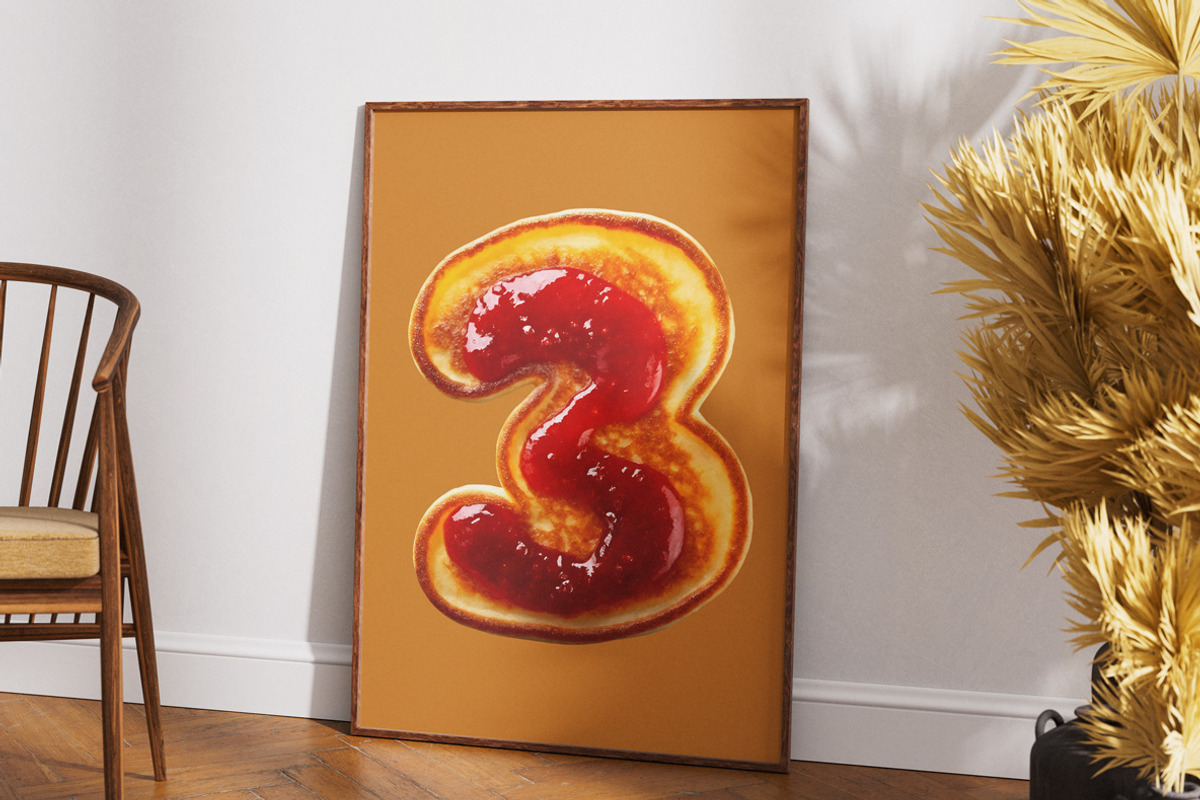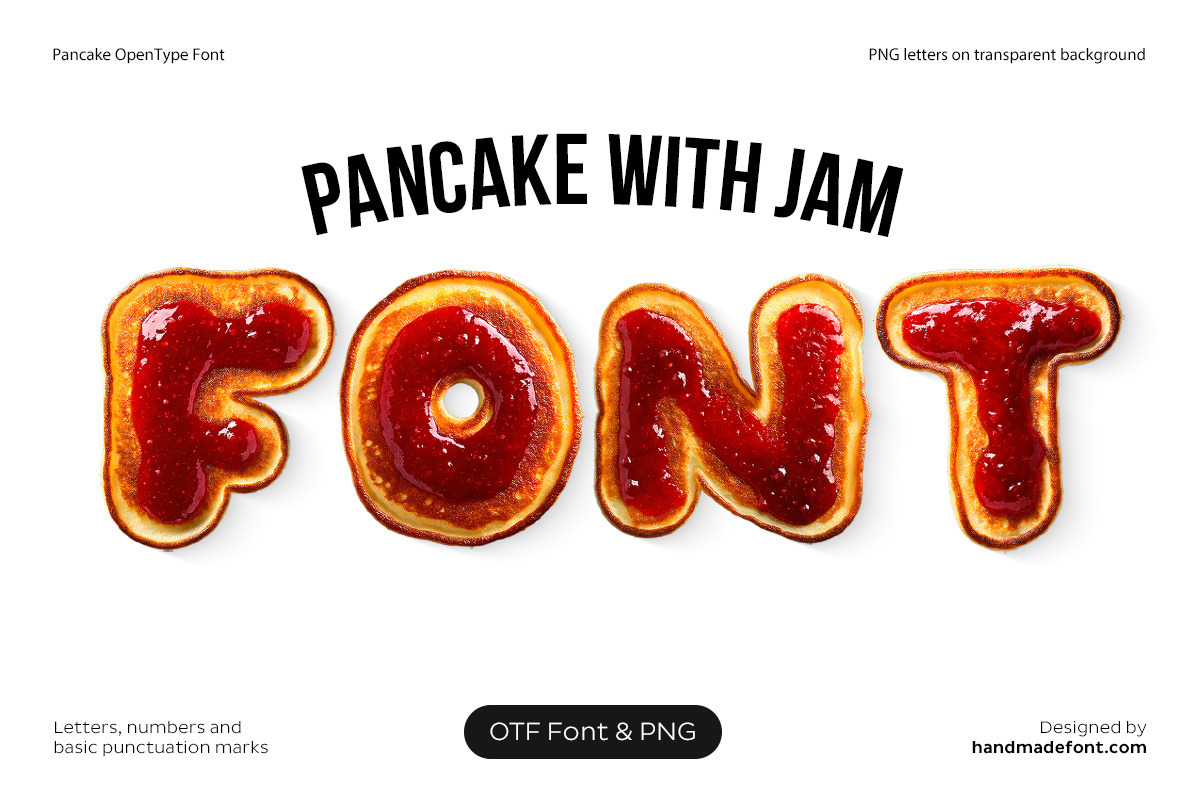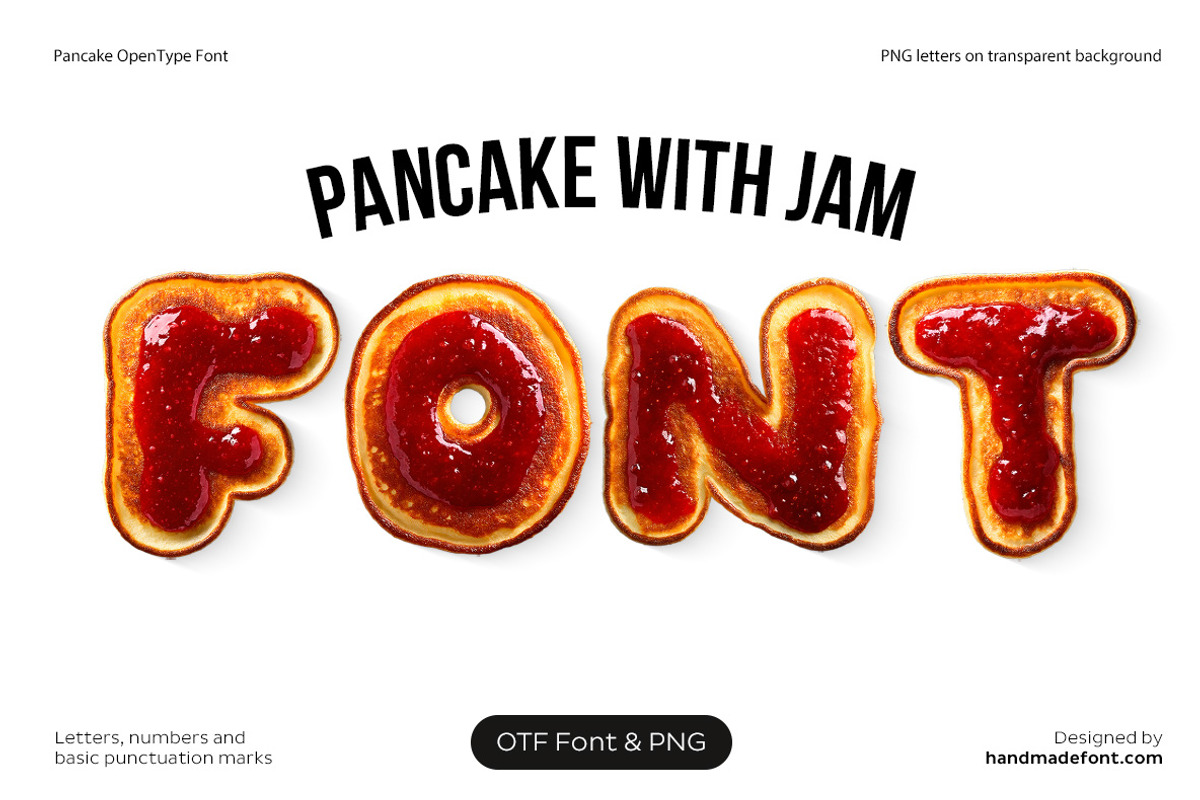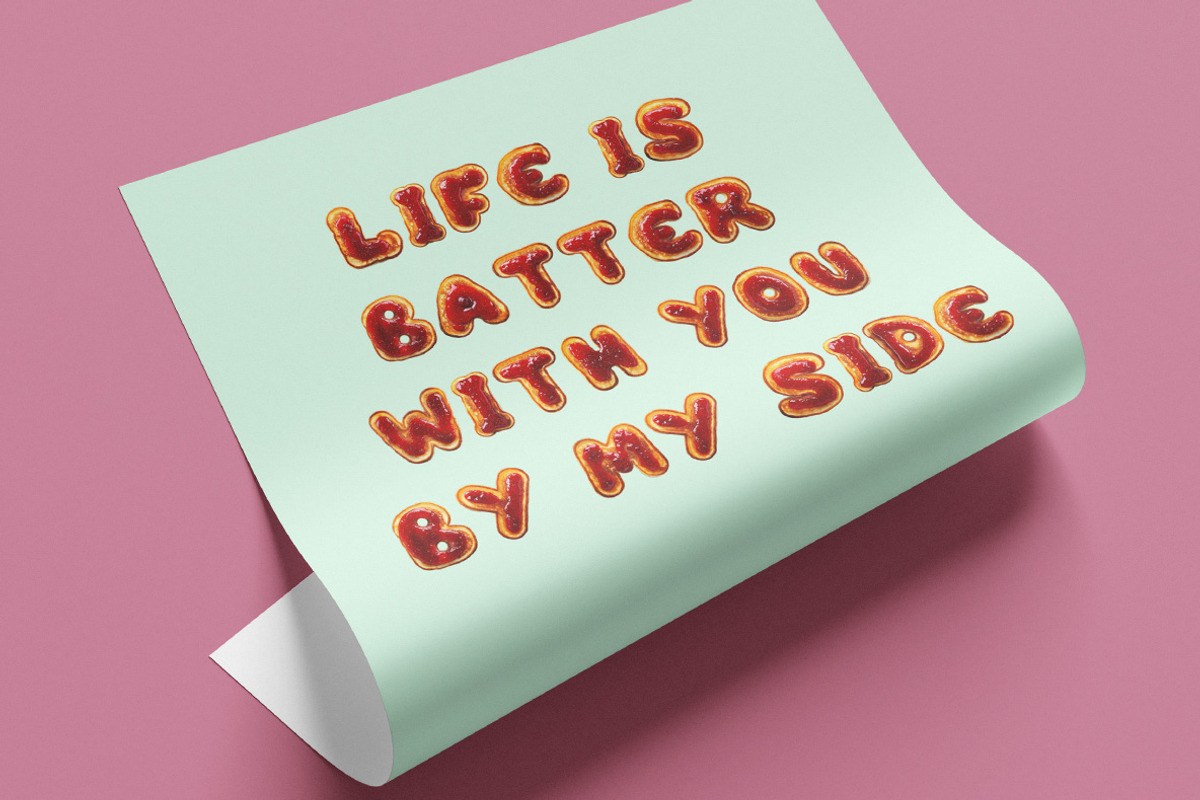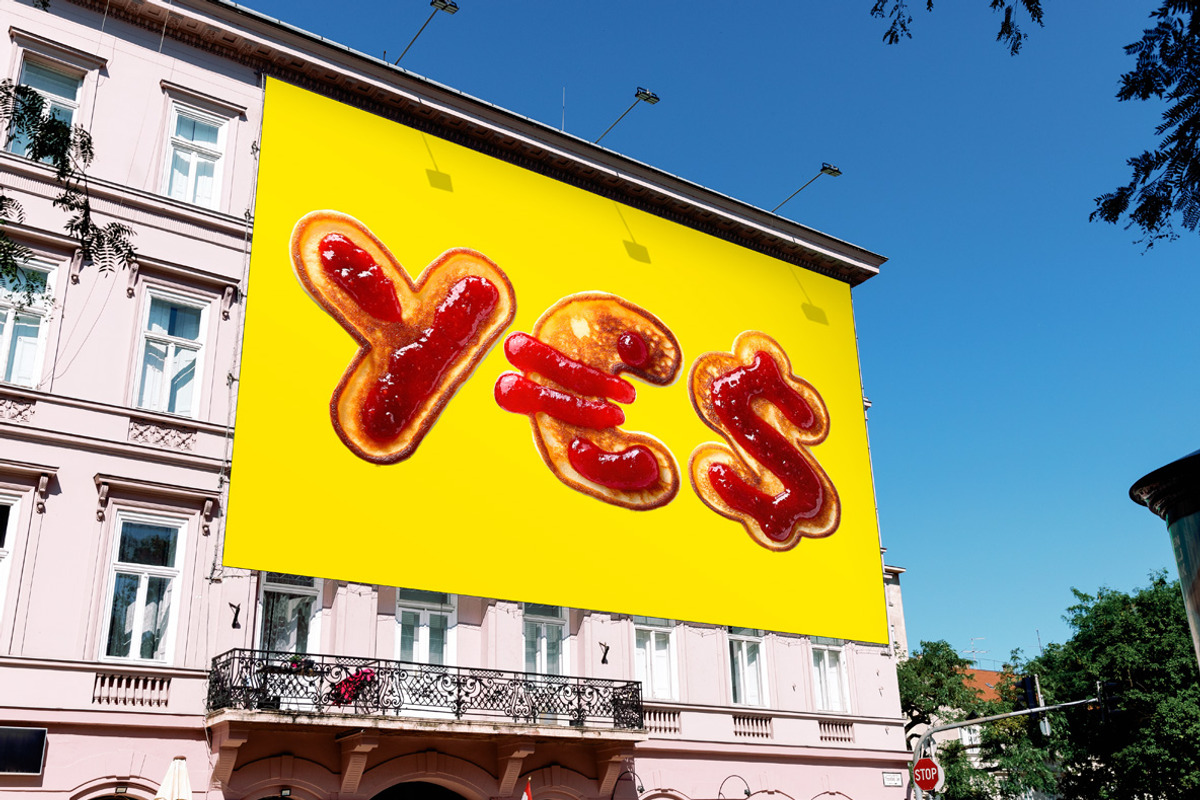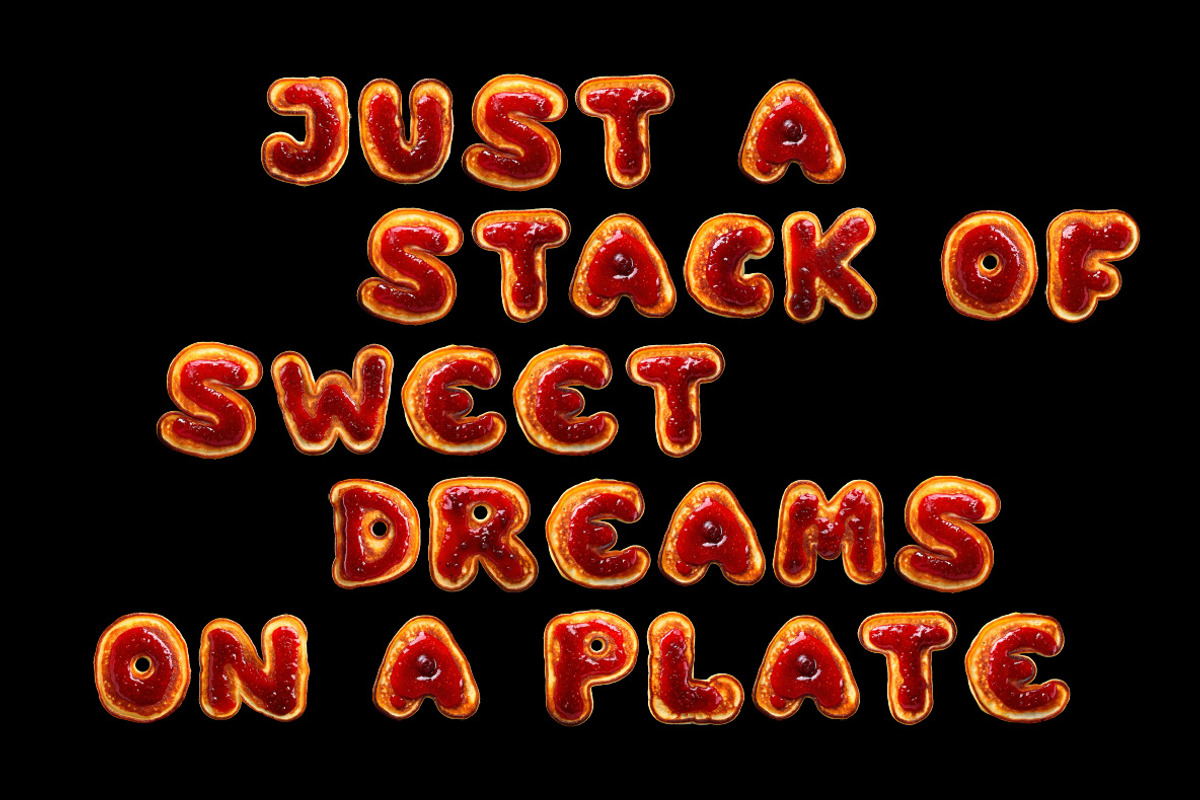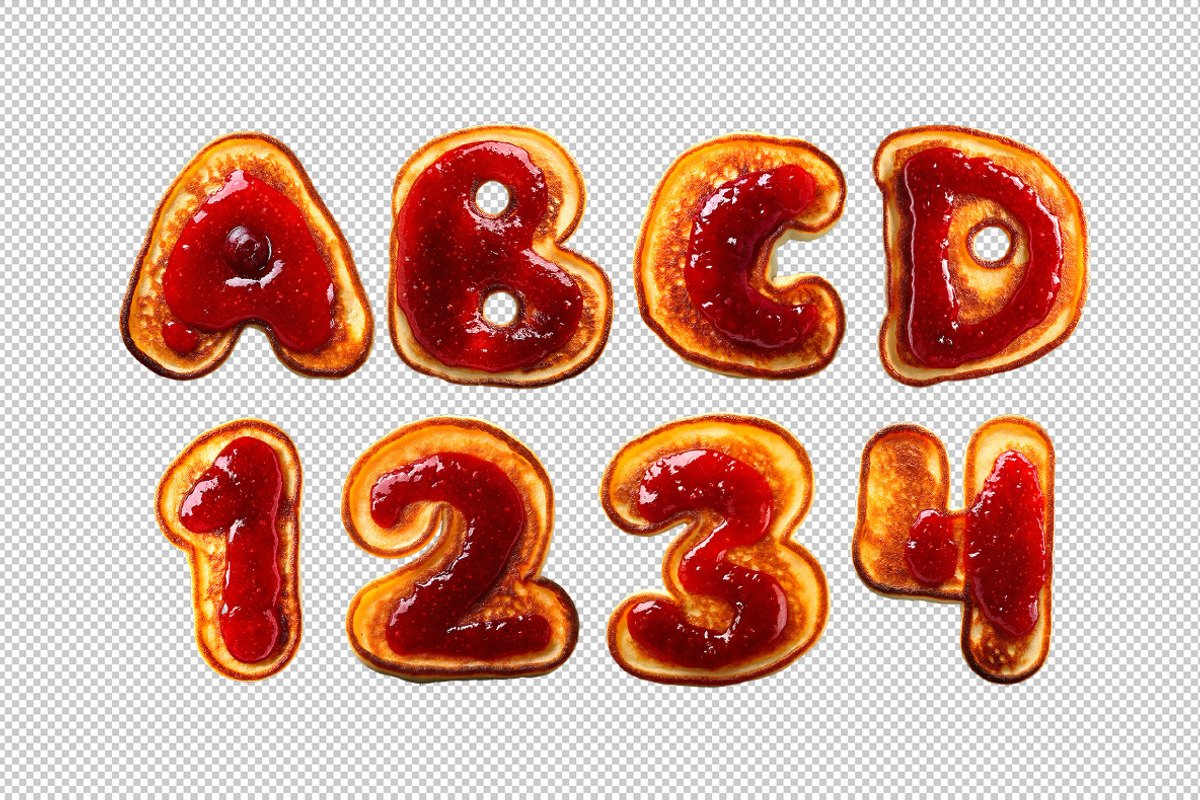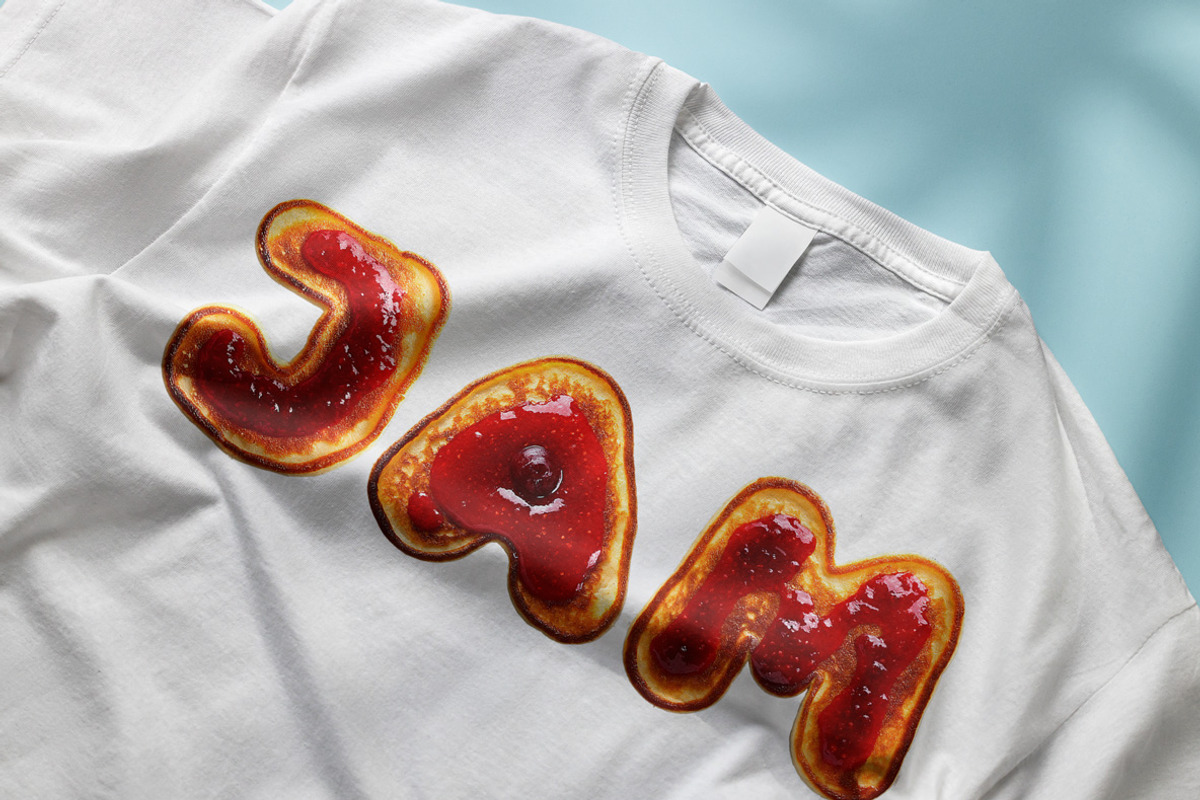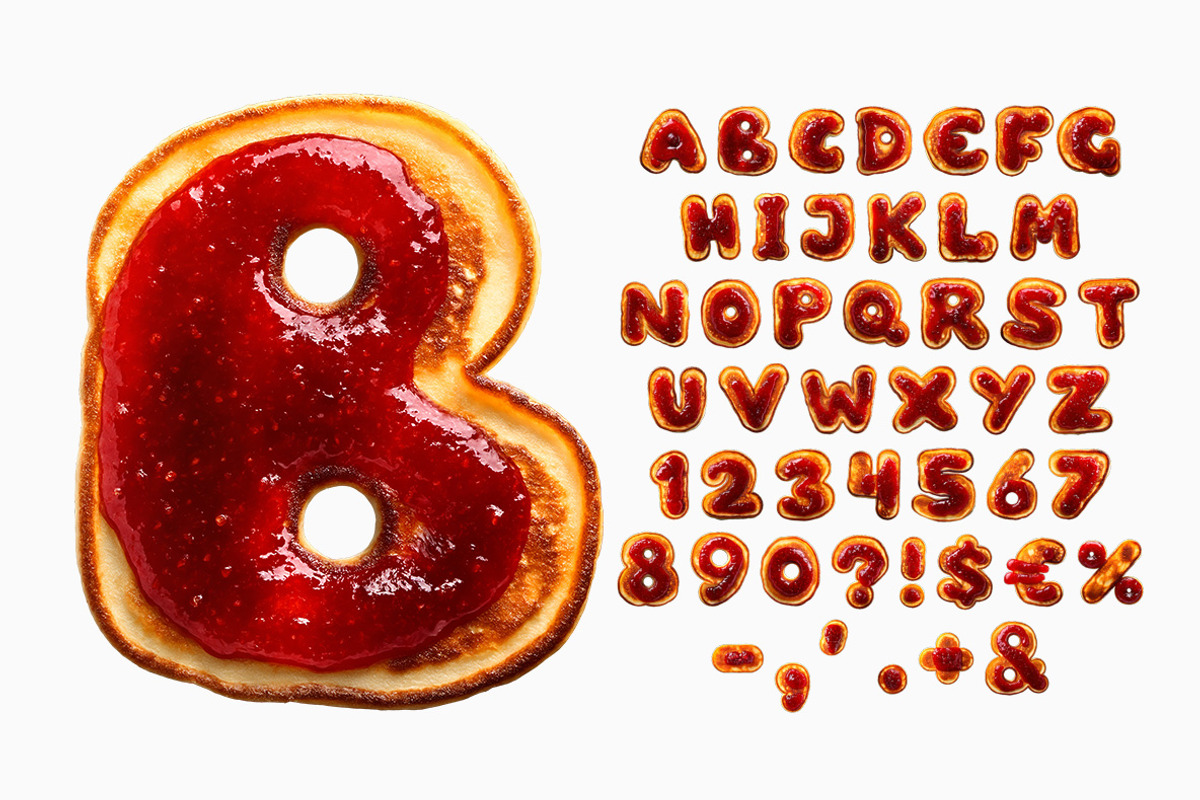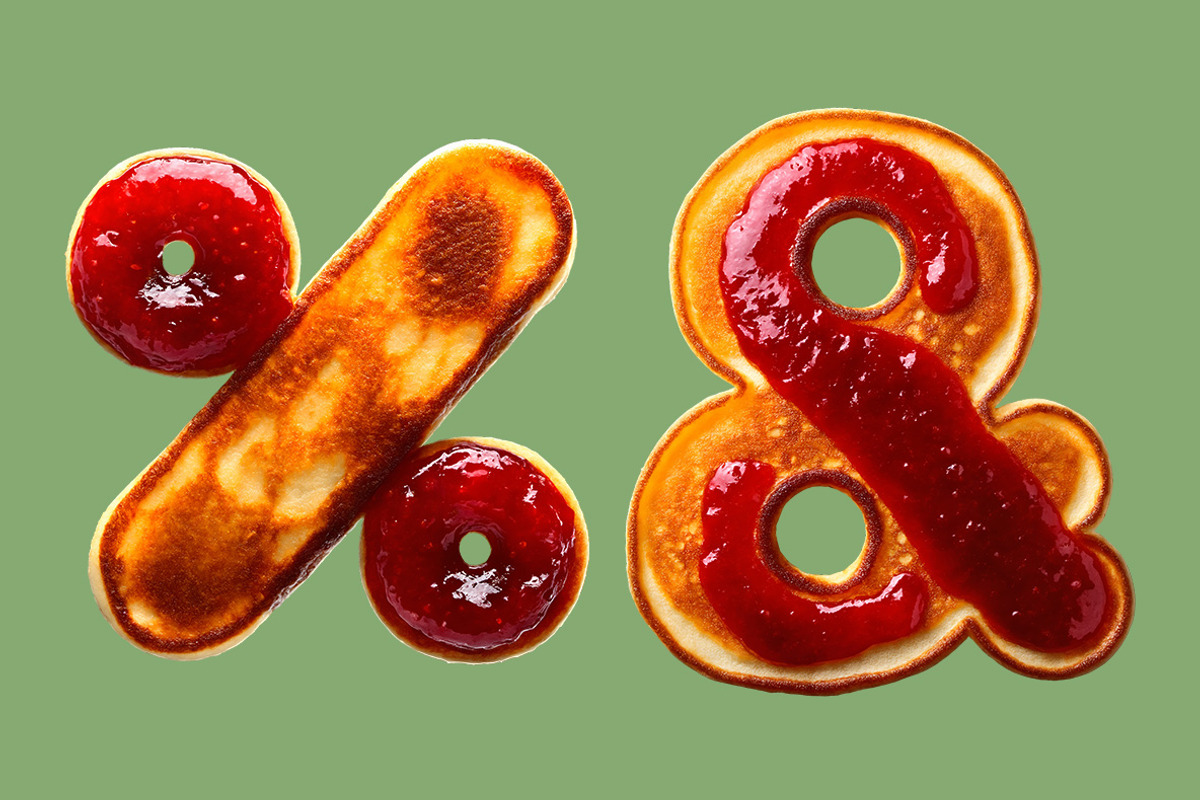
Pancake with Jam Font
Indulge in the sweetness of "Pancake with Jam Font" — a delightful typeface inspired by golden pancakes topped with vibrant, fruity jam. Perfect for adding a cozy, breakfast-inspired touch to your projects, this font brings warm morning vibes to life. Ideal for food blogs, playful branding, or any design craving a splash of sweetness, "Pancake with Jam" is a delicious choice for creative expression.
A high definition OpenType Font. Contains uppercase characters, numerals and basic punctuation. (Draw height roughly 800 pixels). All letters and glyphs that comprises this font you can see on the preview.
- Letters : A B C D E F G H I J K L M N O P Q R S T U V W X Y Z
- Numbers : 0 1 2 3 4 5 6 7 8 9
- Others : ! ? - . ' $ € % @ &